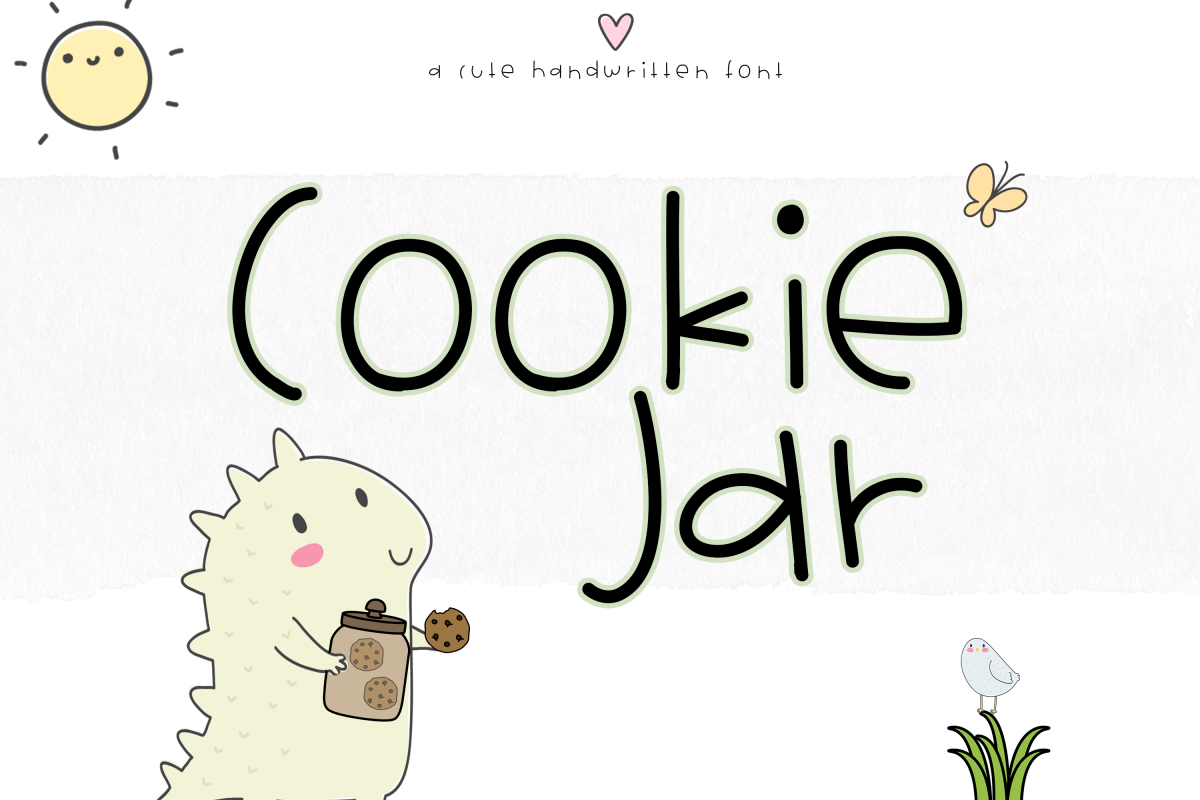
Cookie Jar - A Cute Handwritten Font
Cookie Jar is a cute handwritten font.
This font is perfect for quotes, headings, blogs, logos, invitations and more!
It is also great for children's designs!
This font does include accent characters.